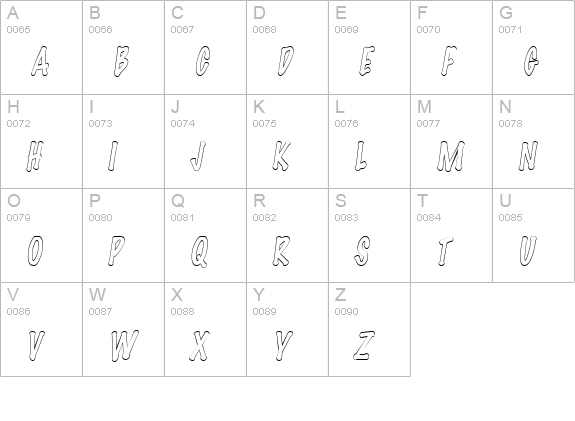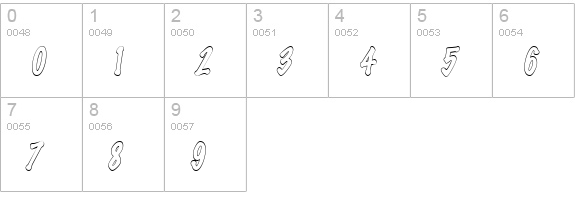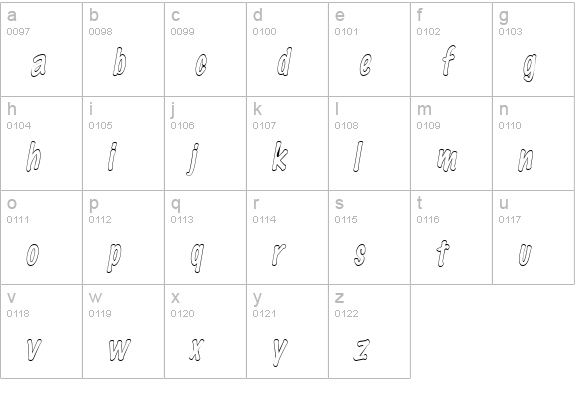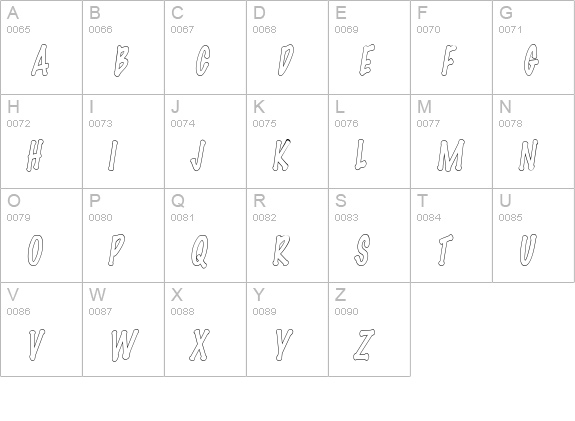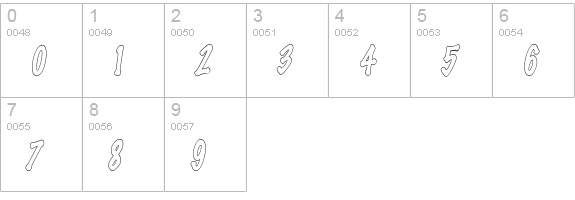
MarkerHollowCondensed Italic Font Details
MarkerHollowCondensed Italic is a distinctive, italic variant in the MarkerHollowCondensed typeface family \xE2\x80\x94 well suited to design and typography projects.
MarkerHollowCondensed Italic font is a versatile and modern typeface that adds a touch of elegance and playfulness to any project. Its condensed form allows for efficient use of space, making it ideal for both print and digital applications. The italic styling of MarkerHollowCondensed adds a sense of movement and fluidity to the characters, creating a dynamic and eye-catching visual experience. This font is perfect for headlines, titles, quotes, and any other text that needs to stand out. With its bold strokes and unique design, MarkerHollowCondensed Italic font captures attention and adds a stylish touch to any design. Whether used in branding, advertising, or personal projects, this font is sure to leave a lasting impression. What makes MarkerHollowCondensed Italic font even more appealing is that it is freely available to download at FontsMarket.com. This means that you can easily access and utilize this fantastic font without any cost. It's a great opportunity to enhance your design projects without breaking the bank. So, why wait? Download MarkerHollowCondensed Italic font today and elevate your designs with its distinctive style and elegance. Embrace its versatility and let your creativity shine. Whether you're a professional designer or a creative enthusiast, this font is a valuable addition to your typographic toolbox.